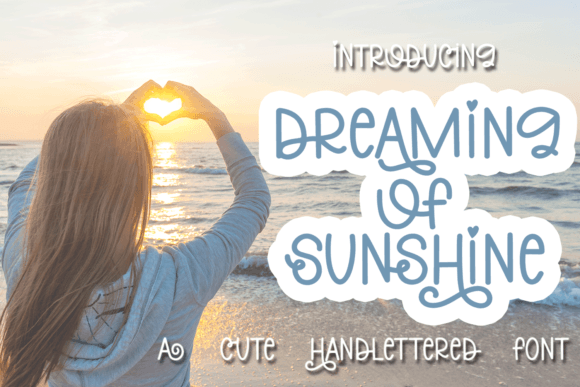
Introduction to Dreaming of Sunshine Font
Introducing Dreaming Of Sunshine, a quirky handcrafted typeface.
Dreaming Of Sunshine is perfectly suited for: Artisanal projects using Cricut or Silhouette machines, or for enhancing your SVG design business Distinctive logos and branding efforts Digital planner designs and apps like Goodnotes Website and blog designs as well as website highlights Sleek print designs such as magazines and flyers Header elements seeking a personalized, handwritten appeal Motivational quote graphics for social media Delicate graphic designs for women’s t-shirts and other clothing items This font is PUA encoded which means you can access all of the amazing glyphs and ligatures with ease .
Why Choose Dreaming of Sunshine Font?
Dreaming of Sunshine Font offers exceptional quality and versatility, making it a valuable addition to your design toolkit. Whether you’re creating for personal projects or commercial use, Dreaming of Sunshine Font delivers professional results.